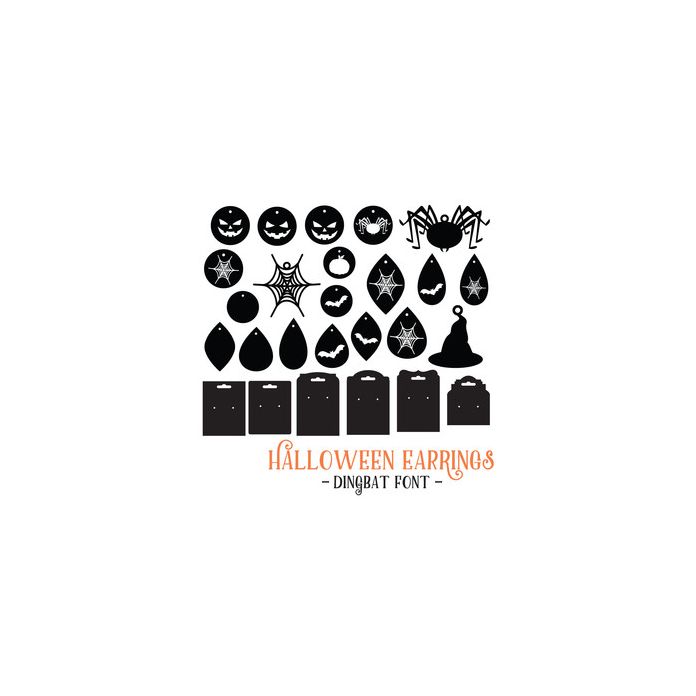
halloween earrings font
Halloween Earrings dingbat font. With single and layered earrings embellished with and backing cards to create your own unique jewellery!